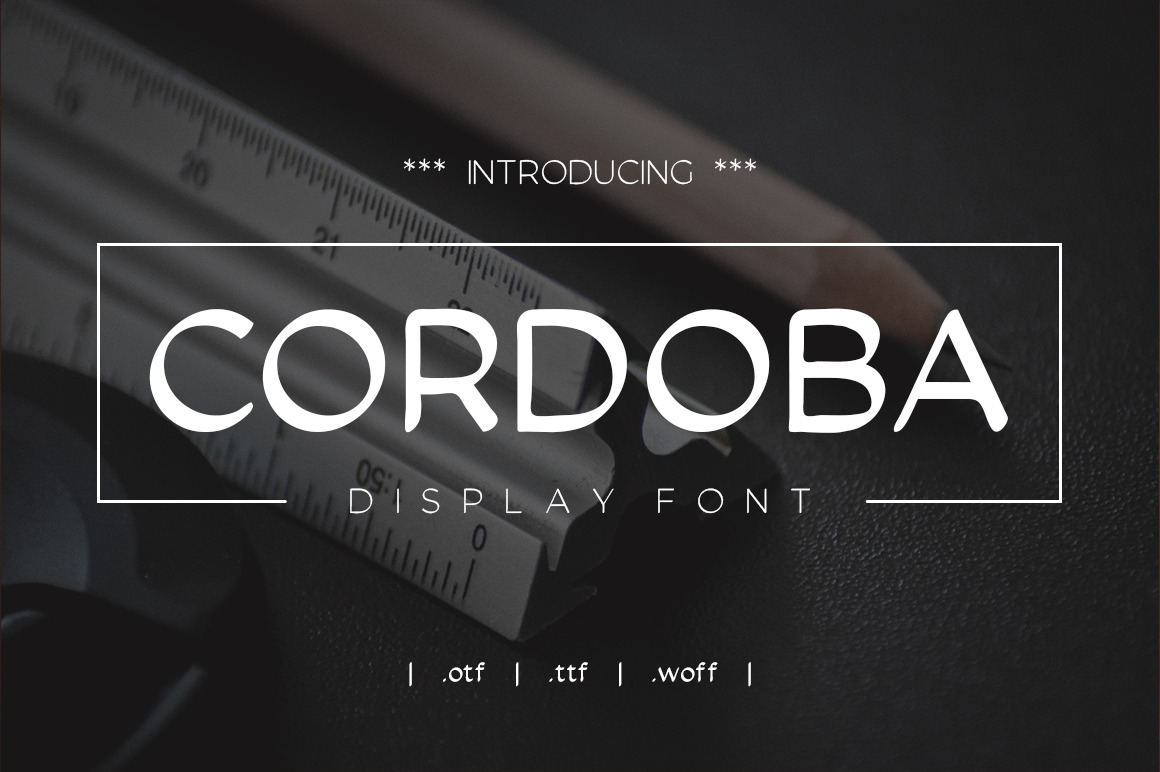
Cordoba Regular and Bold Font
Cordoba Display font very suitable for poster, for logo, music cover, clothing, and many many cool design projects. Cordoba Display font is uppercase and lowercas. Numeric and international font. Regular and Bold.